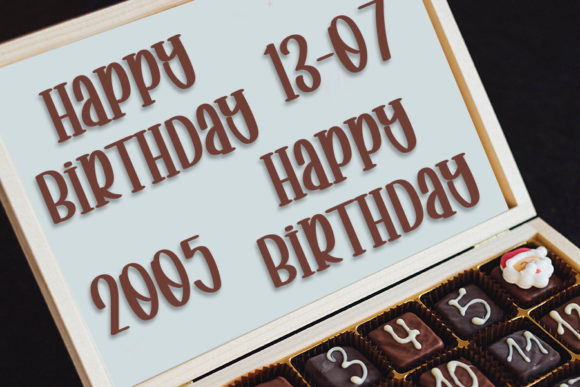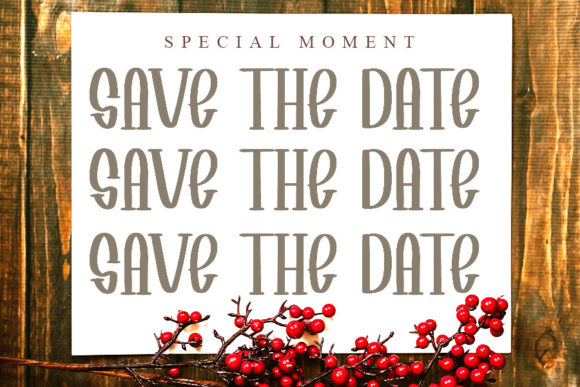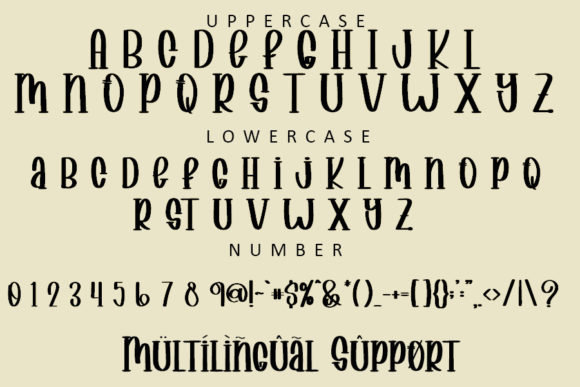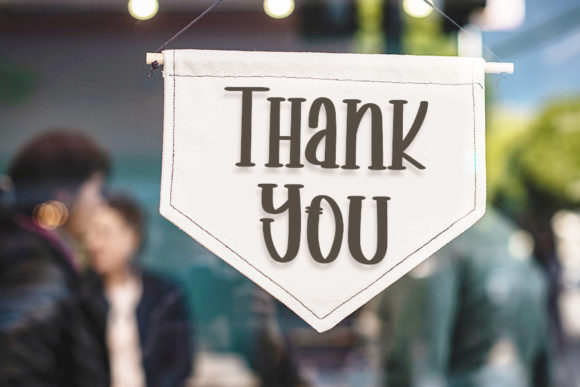
Babies Monkey Font: Unleash Your Creativity with this Playful Handwritten Font
Are you a designer, crafter, or DIY enthusiast looking for a unique and fun font to add a personal touch to your projects? Look no further than Babies Monkey Font! This delightful handwritten font is perfect for creating eye-catching postcards, logos, stationery, and more. In this article, we’ll dive into the world of Babies Monkey Font and explore its features, uses, and benefits.
What is Babies Monkey Font?
Babies Monkey Font is a fun and playful handwritten font that is sure to capture the hearts of designers and crafters alike. Its unique look and feel make it an excellent choice for projects that require a personal and whimsical touch. With its irregularities and quirks, Babies Monkey Font adds a touch of humanity and personality to any design.
Features of Babies Monkey Font
So, what makes Babies Monkey Font so special? Here are some of its key features:
- Handwritten look: Babies Monkey Font has a genuine handwritten look that is perfect for creating personal and relatable designs.
- Unique character set: Each letter, number, and symbol in Babies Monkey Font has its own unique personality, making it perfect for creating eye-catching designs.
- Playful feel: Babies Monkey Font has a playful and carefree feel that is sure to bring a smile to anyone’s face.
- Versatile: Babies Monkey Font can be used for a wide range of projects, from postcards and logos to stationery and more.
Uses of Babies Monkey Font
So, what can you create with Babies Monkey Font? The possibilities are endless! Here are some ideas to get you started:
- Postcards: Create personalized postcards for special occasions, such as birthdays, holidays, or just because.
- Logos: Use Babies Monkey Font to create fun and playful logos for your business or brand.
- Stationery: Add a personal touch to your stationery, including notebooks, journals, and greeting cards.
- DIY projects: Use Babies Monkey Font to add a personal touch to your DIY projects, such as scrapbooking, crafting, and more.
Benefits of Using Babies Monkey Font
So, why should you choose Babies Monkey Font for your next project? Here are some benefits of using this delightful font:
- Adds personality: Babies Monkey Font adds a personal touch to your designs, making them more relatable and engaging.
- Stand out from the crowd: With its unique look and feel, Babies Monkey Font helps your designs stand out from the crowd.
- Fun and playful: Babies Monkey Font is perfect for creating fun and playful designs that bring a smile to anyone’s face.
Tips and Tricks for Using Babies Monkey Font
Here are some tips and tricks for getting the most out of Babies Monkey Font:
- Experiment with colors: Babies Monkey Font looks great in a variety of colors, so don’t be afraid to experiment and find the perfect hue for your design.
- Mix and match: Combine Babies Monkey Font with other fonts or graphics to create a unique and eye-catching design.
- Keep it simple: Don’t overcomplicate your design – sometimes, less is more, and Babies Monkey Font can shine on its own.
In conclusion, Babies Monkey Font is a fun and playful handwritten font that is perfect for designers, crafters, and DIY enthusiasts. With its unique look and feel, it’s an excellent choice for creating eye-catching postcards, logos, stationery, and more. So why not give Babies Monkey Font a try and unleash your creativity?